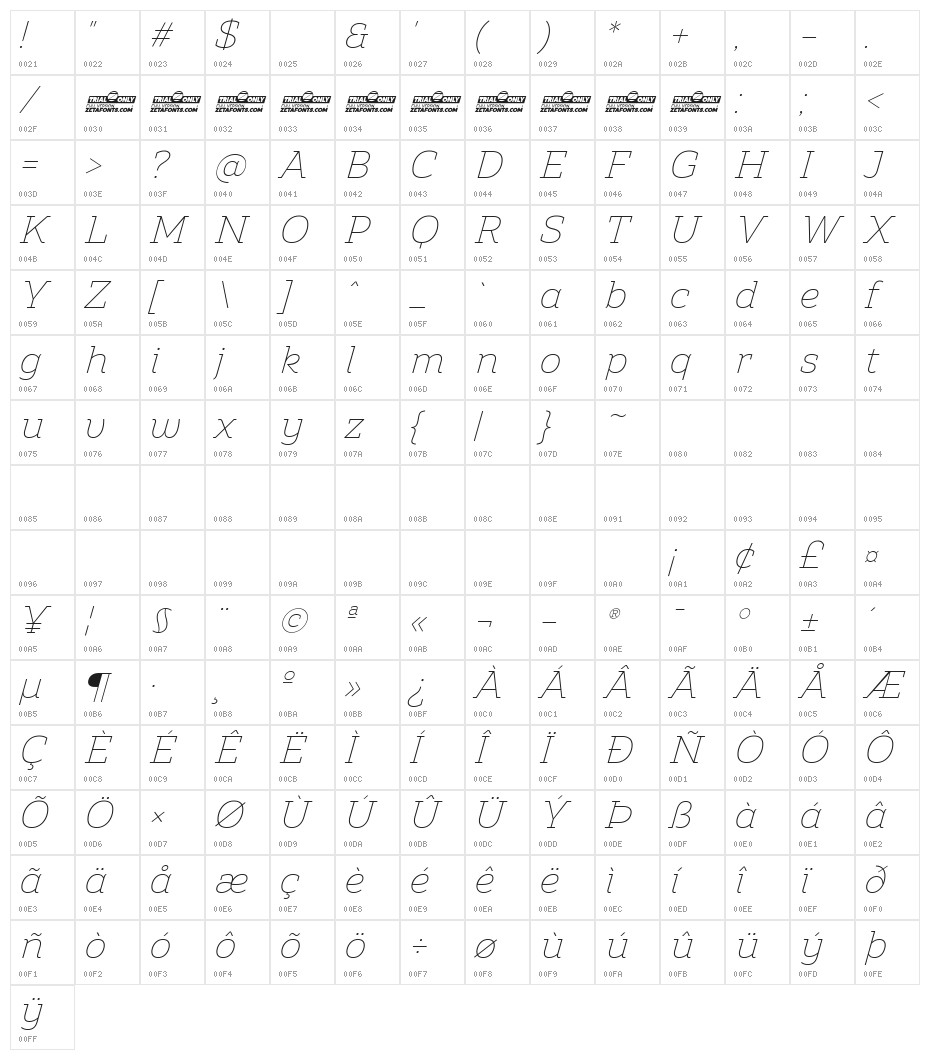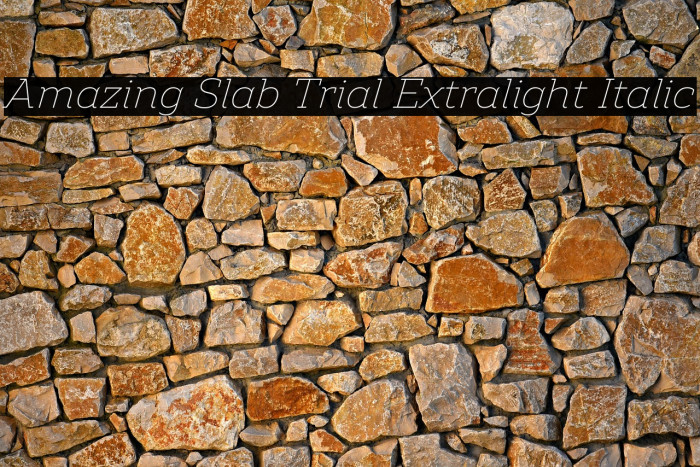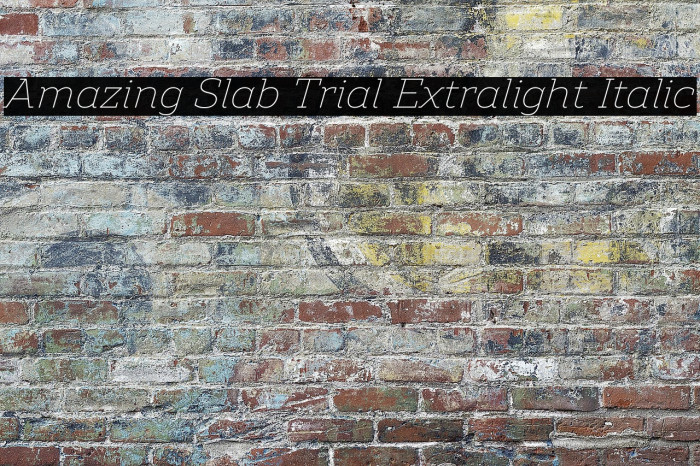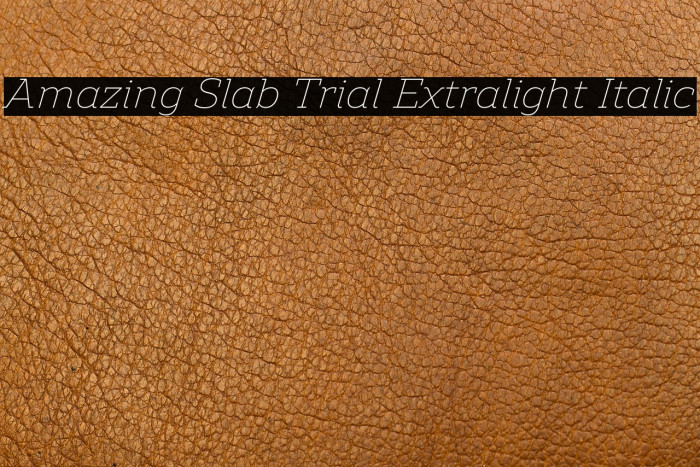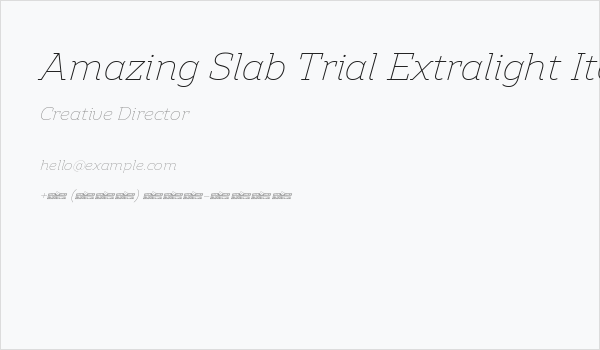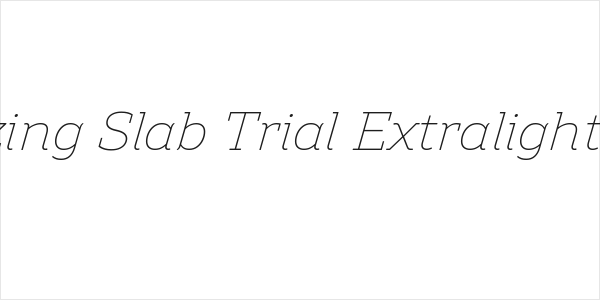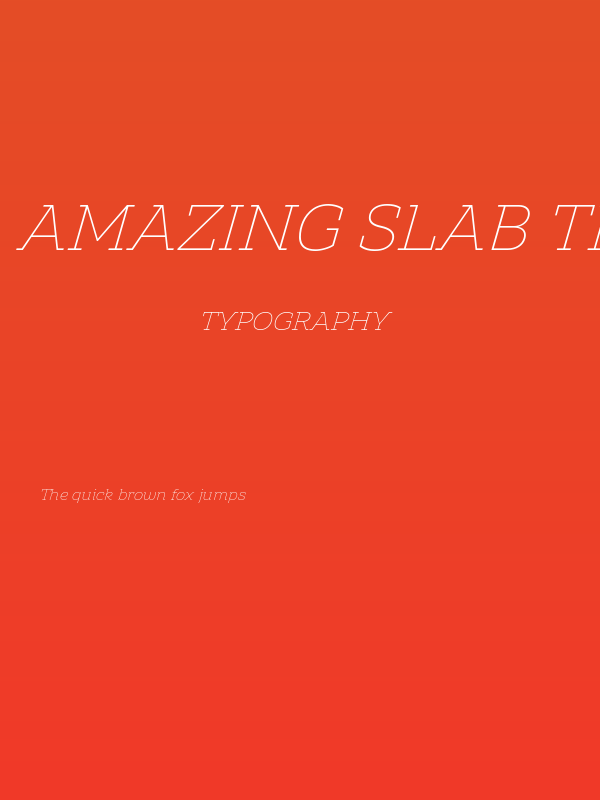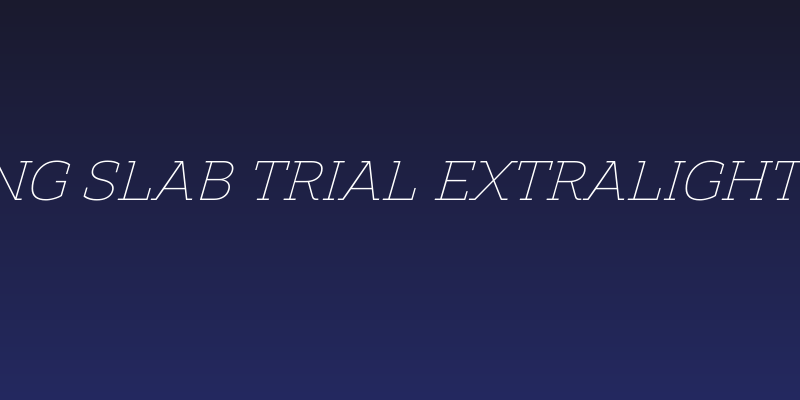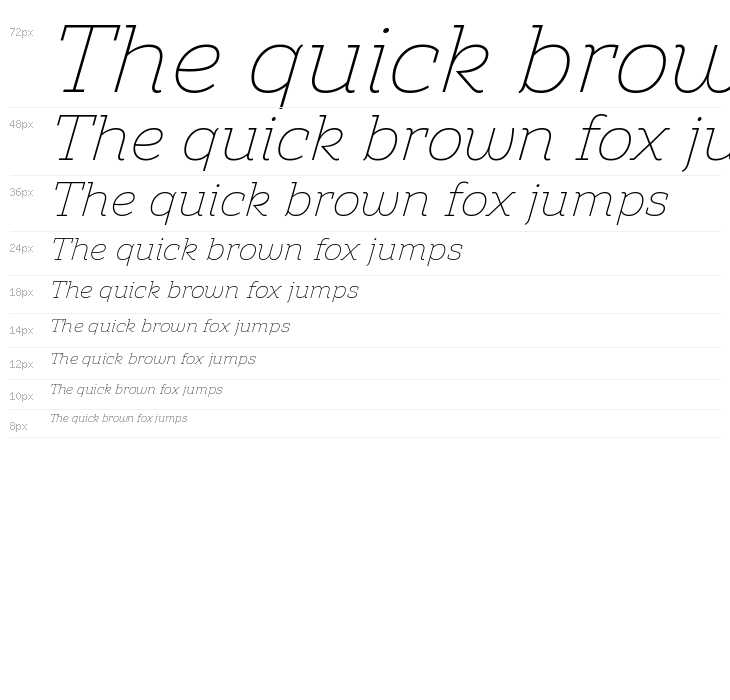
Amazing Slab Trial Extralight Italic Font
Amazing Slab Trial Extralight Italic Description
This font features a sleek and elegant design with a subtle italic slant, giving it a sophisticated and modern appearance. The characters are thin and elongated, contributing to an airy and refined look. The font maintains a consistent stroke width throughout, which enhances its readability and clean aesthetic. The spacing between characters is balanced, providing a harmonious flow in text. Its minimalist style makes it versatile for various design applications, while the italic nature adds a touch of dynamism and flair.